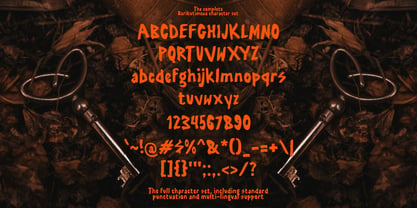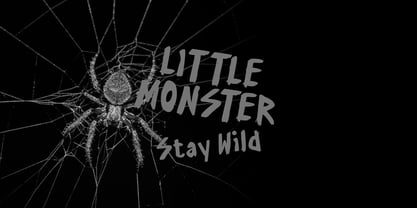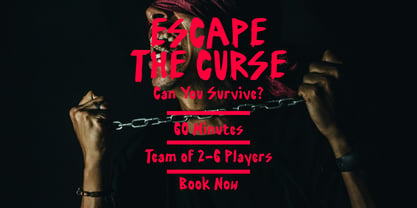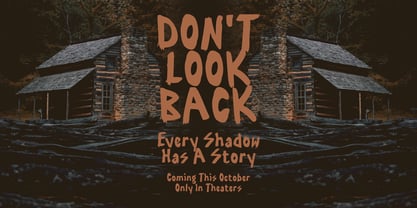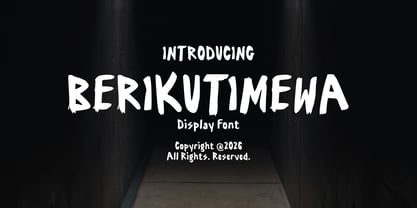
Berikutimewa
by Mei Suseno
The Berikutimewa Font Family was designed by Wahyu Eka Prasetya, Mei Suseno and published by Mei Suseno. Berikutimewa contains 2 styles and family package options. More about this family
Berikutimewa is a bold hand-drawn display font with a spooky, playful, and rugged personality. Featuring rough brush-like edges and an organic handcrafted feel, this font is perfect for creating eye-catching designs that demand attention. Whether you're designing Halloween posters, horror movie titles, gaming graphics, themed merchandise, party invitations, or social media content, Berikutimewa delivers a unique and expressive look. Its bold letterforms and imperfect details add character, making every headline feel fun, mysterious, and unforgettable.
Designers: Wahyu Eka Prasetya, Mei Suseno
Foundry: Mei Suseno
Mei Suseno is an independent type foundry focused on creating distinctive, high-quality typefaces for modern branding, editorial design, digital products, and visual communication. The foundry combines contemporary aesthetics with careful craftsmanship to develop fonts that are both functional and expressive. With an emphasis on originality, versatility, and strong visual identity, Meisuseno aims to support designers, creative studios, and brands in building memorable and effective design experiences across print and digital media.